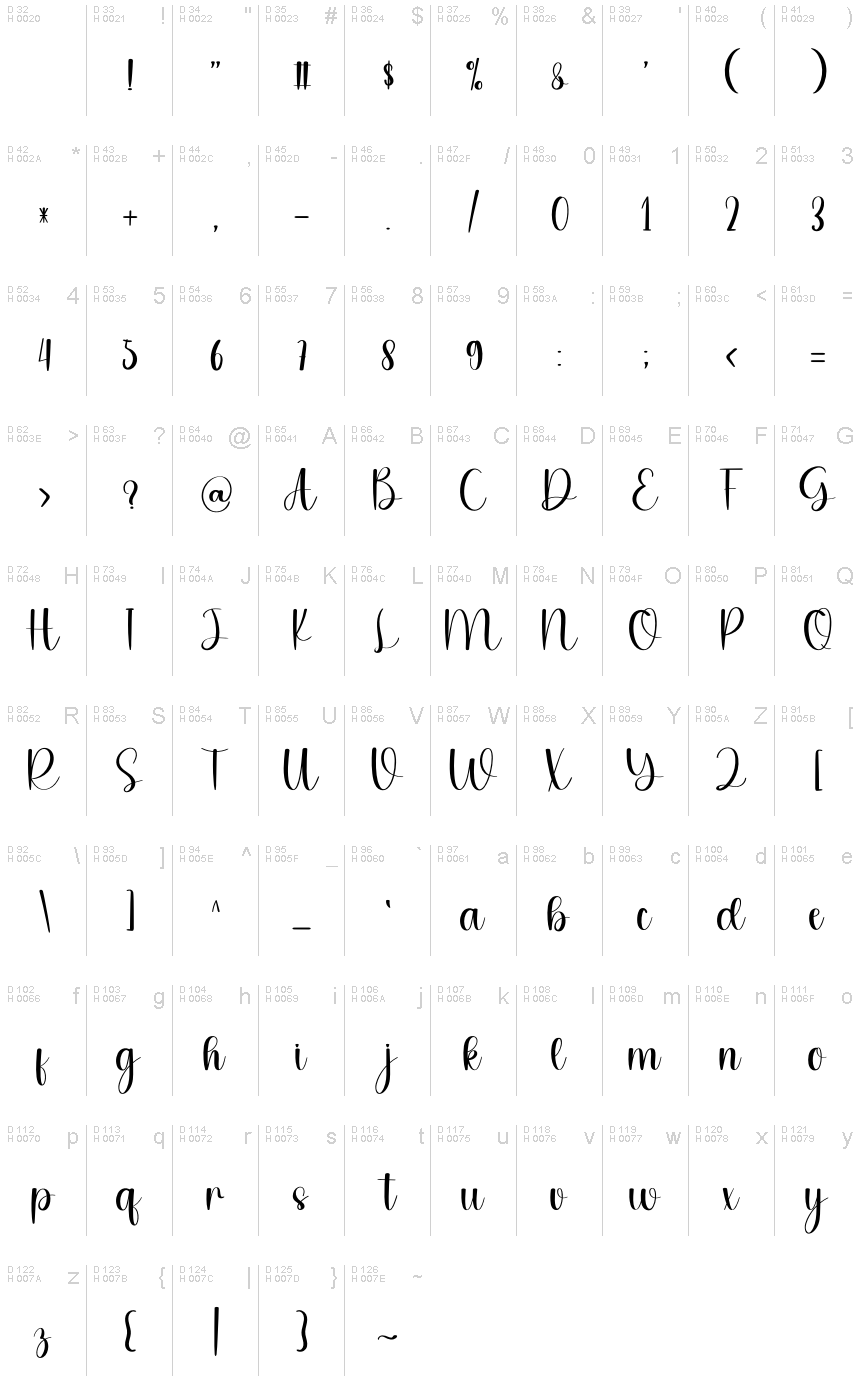
Child
Child, from the creative minds at PiPi Creative, evokes a sense of whimsy and nostalgia with its handwritten style that captures the playful innocence of a child's first attempts at penmanship. Its fluid, organic strokes and rounded forms bring a personal touch to any project, offering an inviting warmth that computer-generated typefaces often lack.
The casual elegance of Child makes it perfect for invitations, greeting cards, and children's books where a touch of personal charm is desired. It's also well-suited for educational materials aimed at young learners or any design work that benefits from a friendly, approachable look.